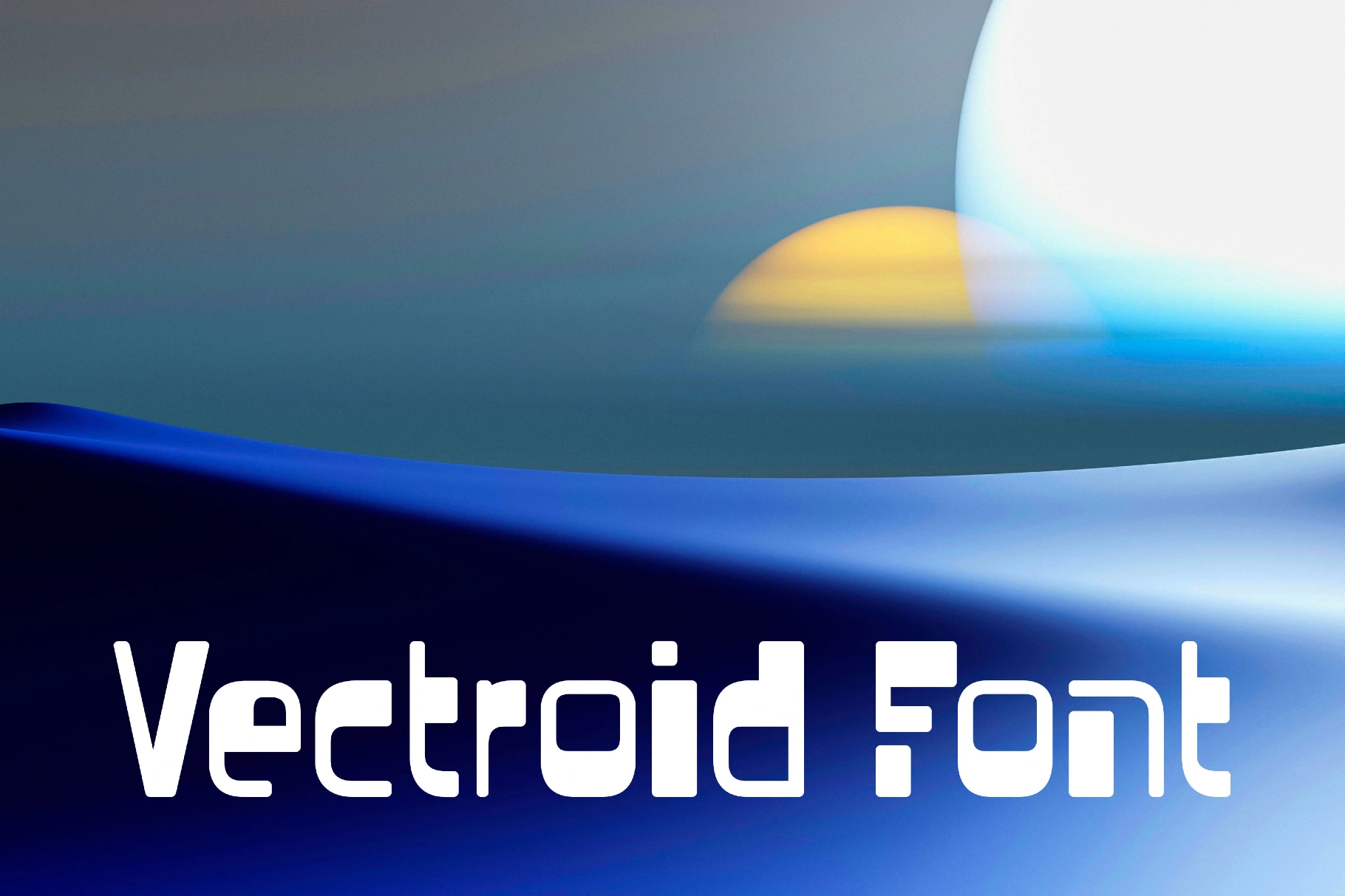
Vectroid Font
Vectroid
Vectroid is a retro-futuristic font with bold, geometric strokes and smooth corners inspired by magnetic-ink lettering, arcade cabinets, or early CGI title cards. It’s a strong pick for game logos, Y2K tech posters, esports branding, dashboard titles, splash screens, album artwork, interface mockups, product packaging, and motion title sequences.
- International characters with multilingual support across extended Latin scripts for common European languages.
- Extended support for mathematical symbols and basic metrics.